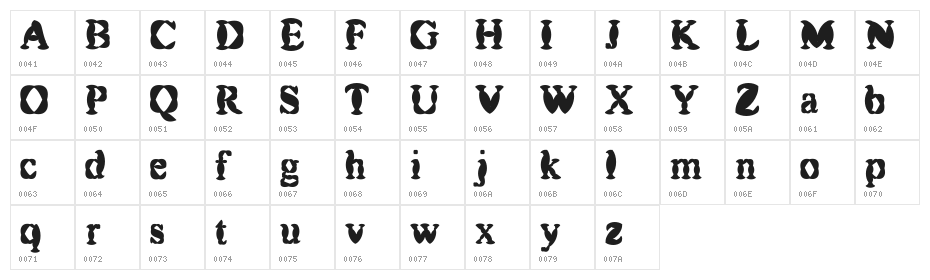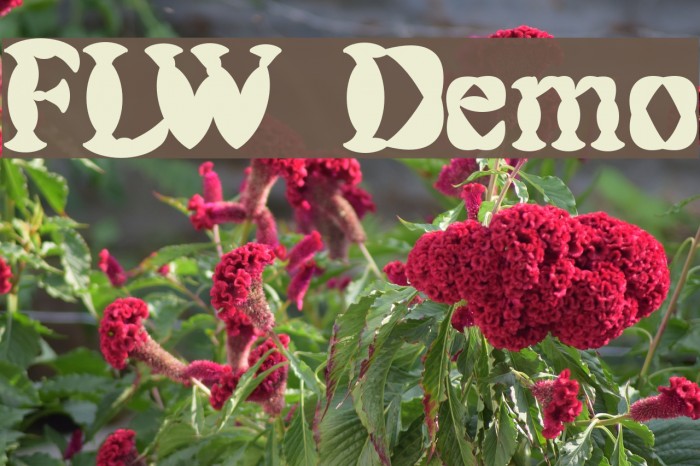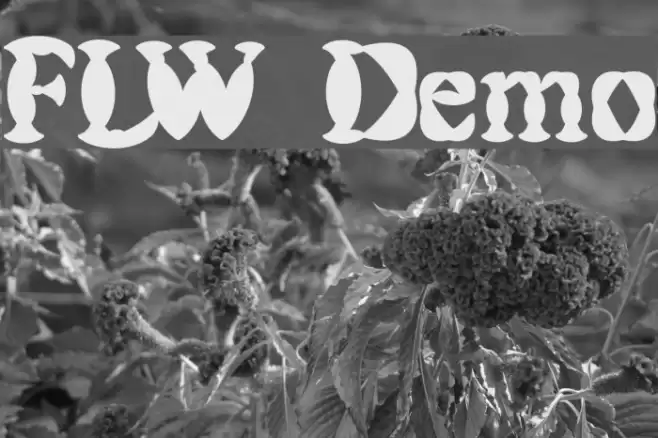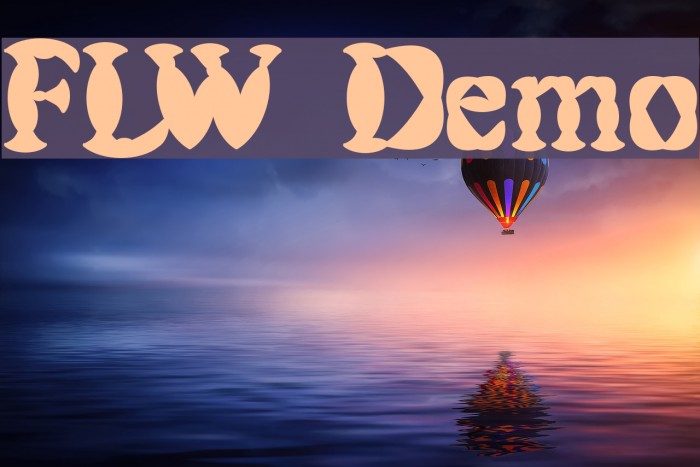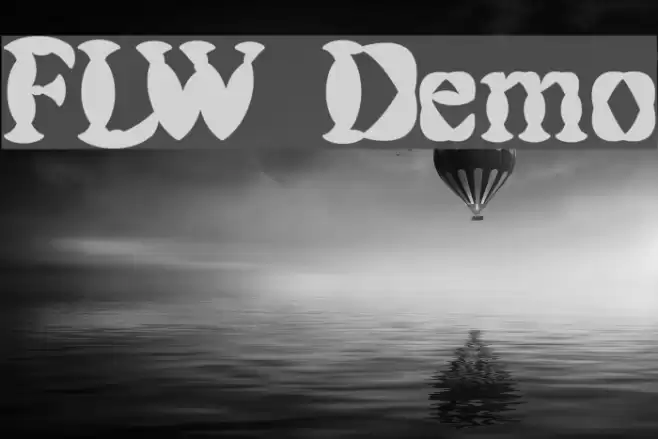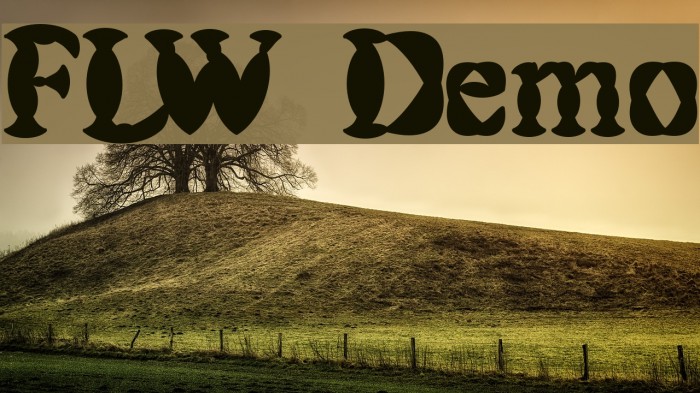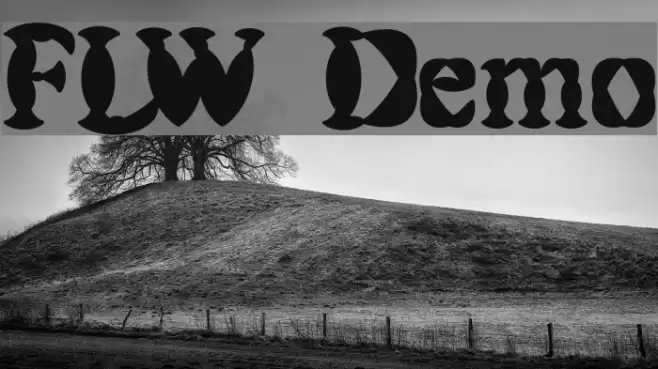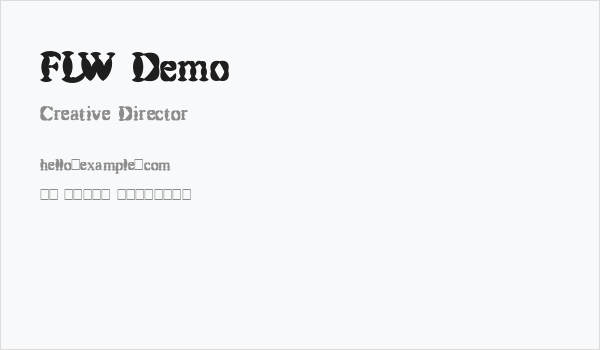
FLW Demo Font
FLW Demo Description
This font features a bold and dramatic style with a strong presence. The characters are designed with thick strokes and high contrast, creating a striking visual impact. The edges are slightly rounded, adding a touch of softness to the otherwise robust appearance. The uppercase and lowercase letters maintain a consistent style, with unique flourishes that enhance their decorative appeal. The font's overall design is reminiscent of vintage or gothic styles, making it suitable for projects that require a bold and artistic touch.
Overall StyleVintage, Decorative
Proposed ProjectsIdeal for use in posters, logos, book covers, and any design that requires a bold, artistic flair.